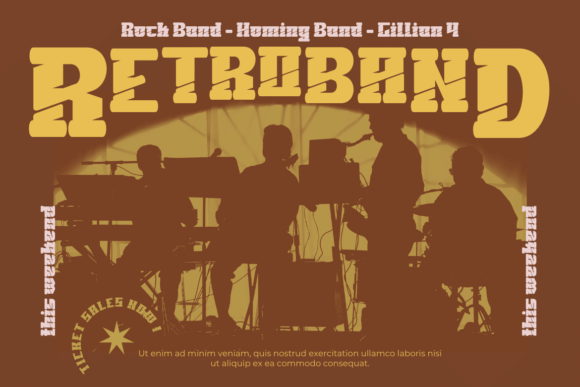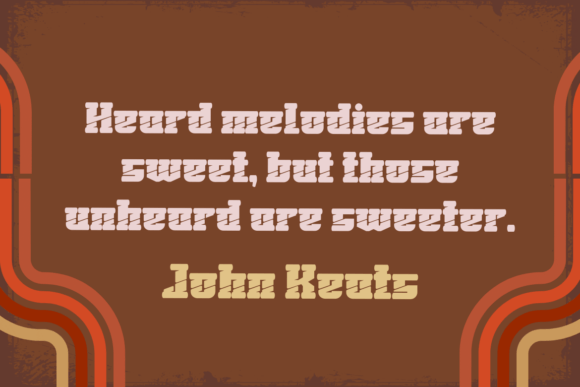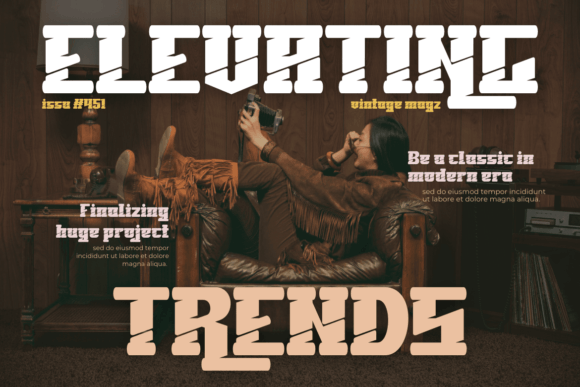
Introduction to Sankor Font
Have you ever found yourself staring at a blank canvas, searching for the perfect font to bring your creative vision to life? We’ve all been there – the blank page staring back at us, daring us to take the first step. But what if you stumbled upon a font that not only spoke to you, but also elevated your design to the next level? For designers, finding that elusive font can be a game-changer.
Enter the Sankor Font – a bold, groovy display font that’s sure to add a modern twist to any project. Its unique, stylish design makes it a valuable resource for designers looking to add some personality to their work. With its high-quality design and transparent background, the Sankor Font is perfect for creative projects that require a touch of sophistication and flair.
Key Features of Sankor Font
- Perfect for designers and artists looking for a distinctive and modern design element to enhance their creative project.
Honest Review: Sankor Font
I recently came across the Sankor Font and was excited to dive in and see what it had to offer. As a designer, I’m always on the lookout for high quality design resources that can elevate my creative projects.
One of the standout features of the Sankor Font is its versatility. It works well in a variety of settings, from digital interfaces to print materials. The font is also highly customizable, making it easy to adapt to different design styles and themes. ✨
However, I did notice a few limitations with the Sankor Font. ⚠️ The font is not as comprehensive as some other options on the market, and may not be suitable for large-scale design projects. Additionally, some users may find the font’s aesthetic to be a bit too minimalist for their taste.
Overall, I would give the Sankor Font 4 out of 5 stars. While it’s not perfect, it’s a solid addition to any designer’s toolkit and can be a great resource for creative projects.
The Sankor Font is a versatile design resource that can be used in a variety of creative projects, including graphic design, web design, and digital art. It’s particularly useful for designs that require a high-quality, transparent background or a unique font style.